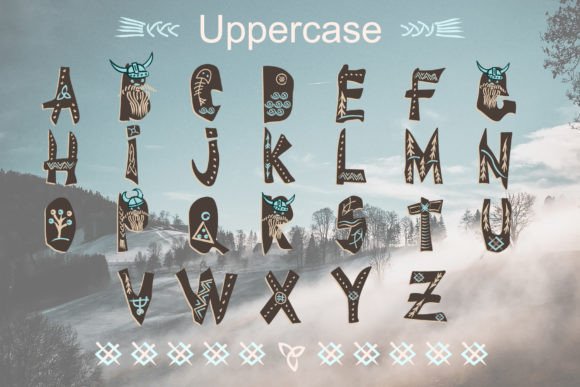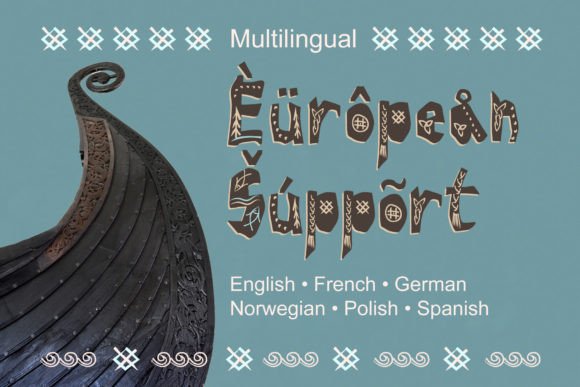
Brave Viking Font Font
Brave Viking is a modern display font. You can use this color font to design logos, quotes prints on t-shirts, modern typography posters, children’s posters, and lovely cards.